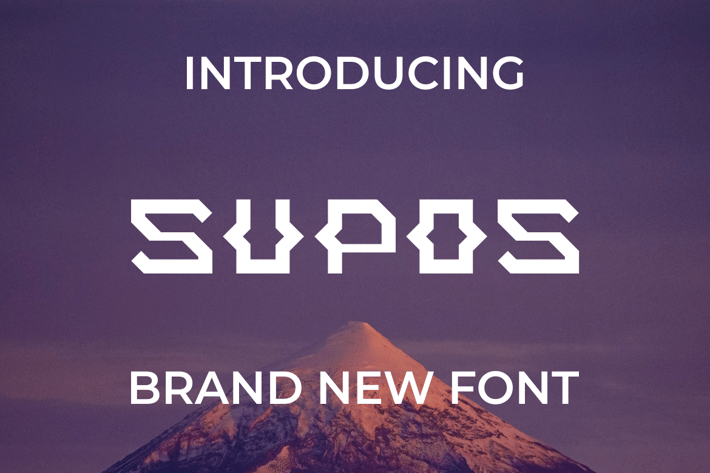
SUPOS Font
Introducing our new product SUPOS Font - Modern Font
SUPOS Font - Modern Font is a bold and authentic display font. The font is suitable for any branding project like logo, t-shirt printing, esport, and many more. outstanding in a wide range of contexts.